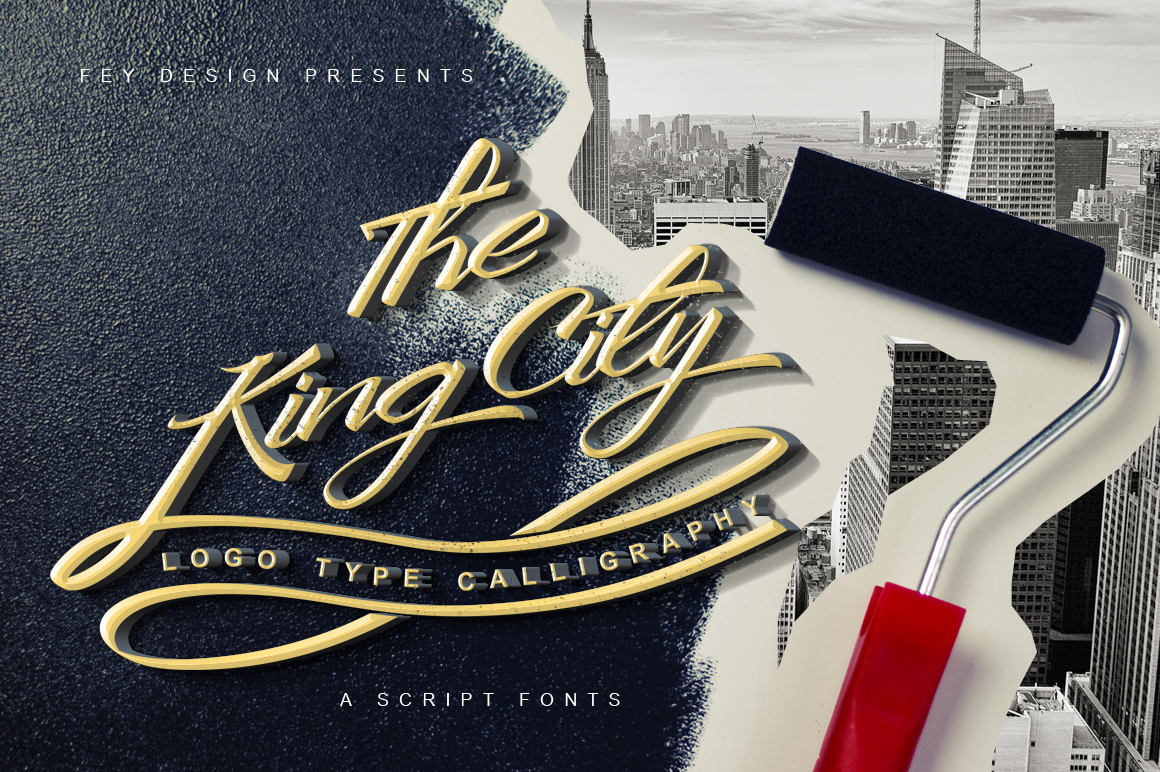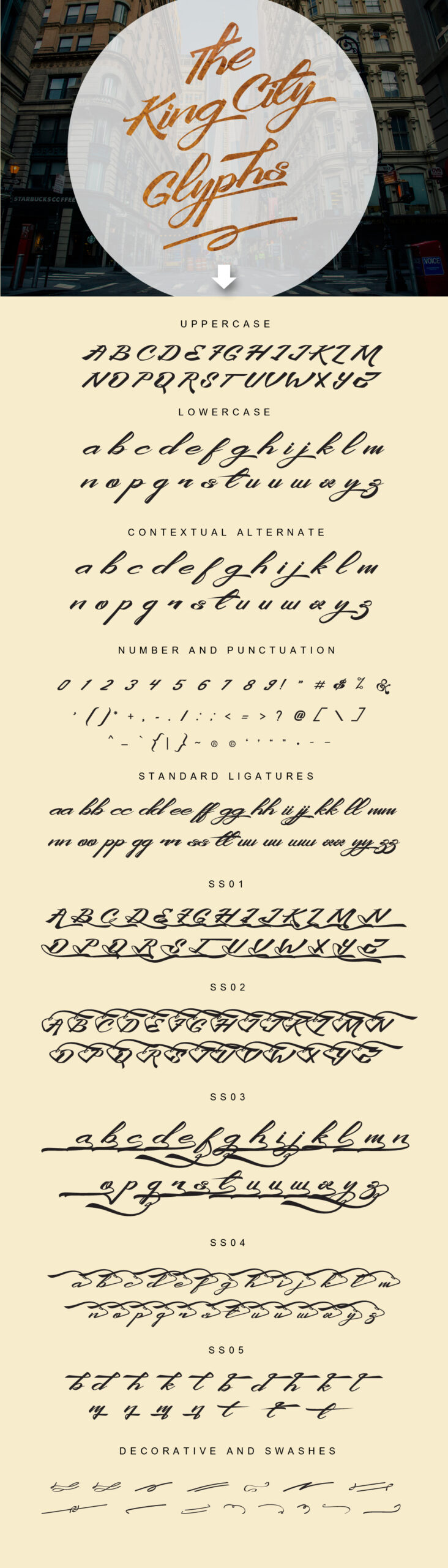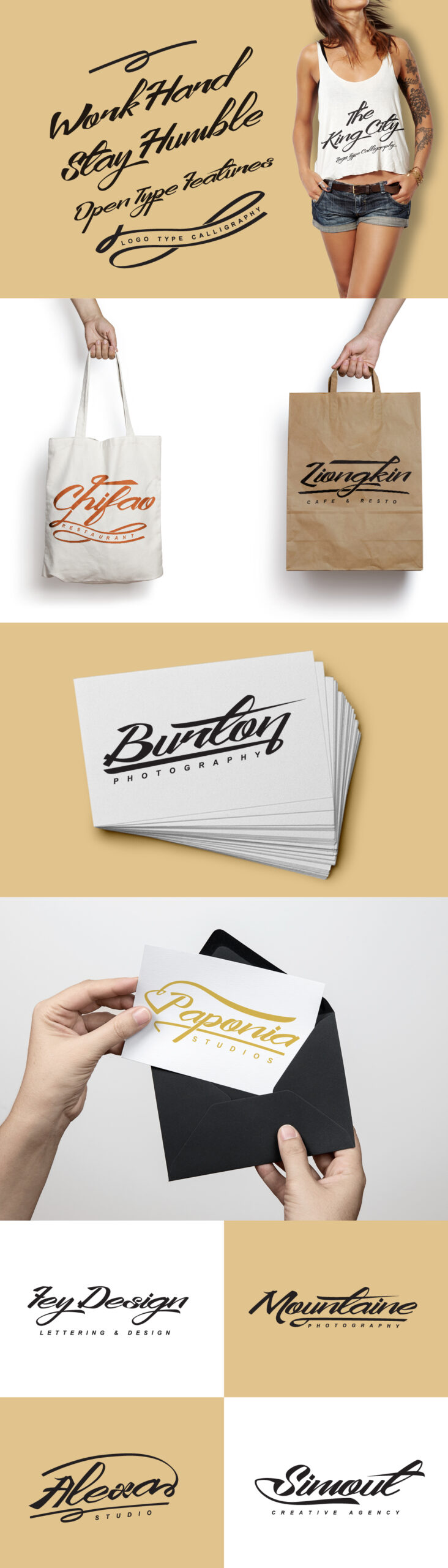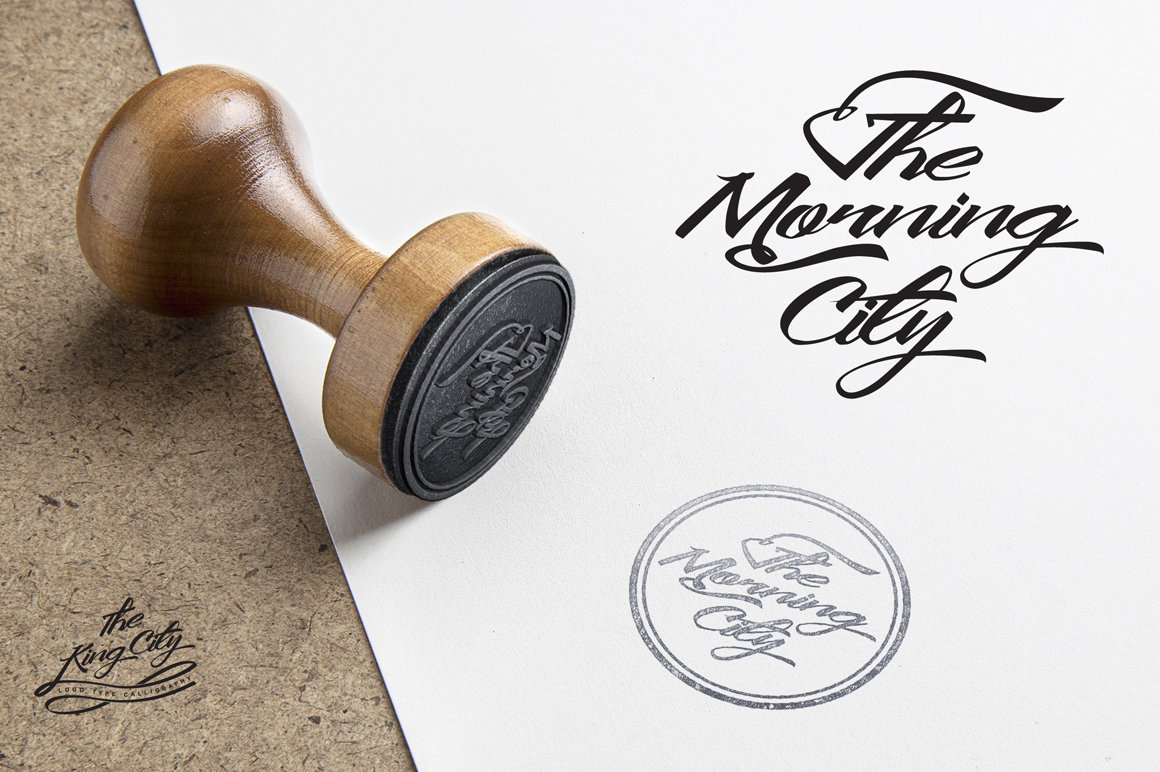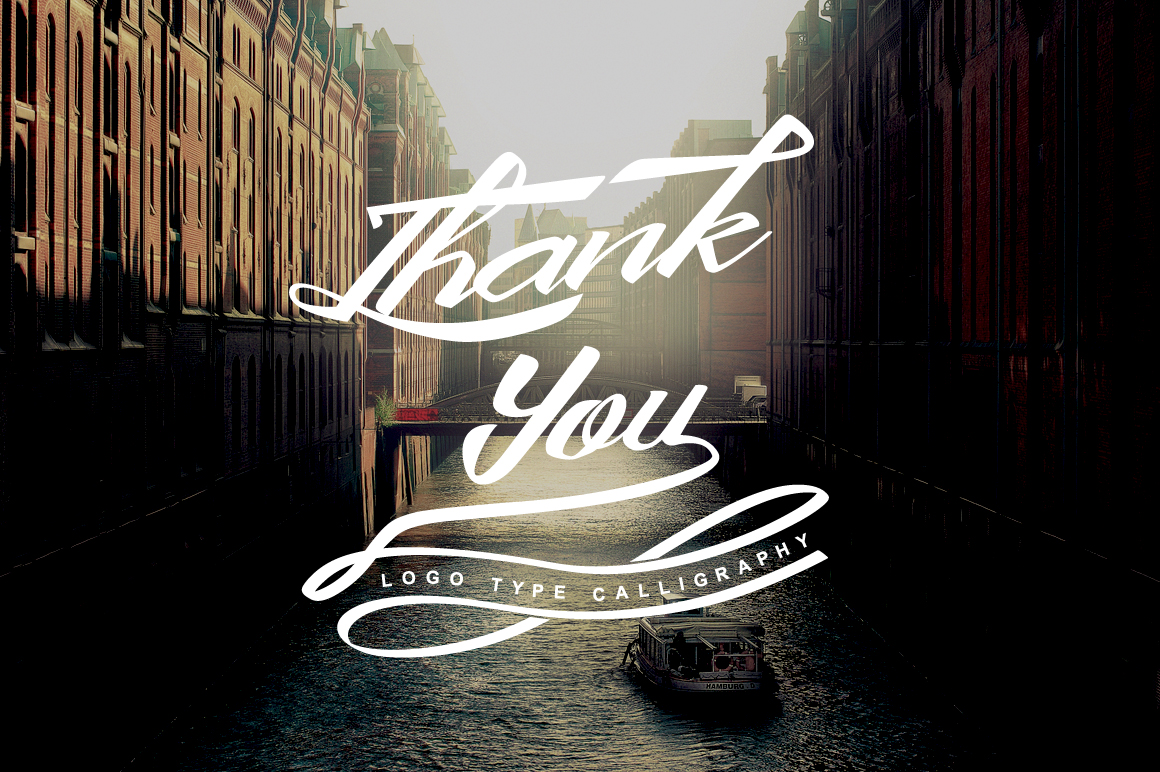
King City Font
About King City Font
King City is a beautiful script font, crafted with a logotype feel; this beautiful handwritten font is perfect for giving your designs a branded and vintage appeal with tons of swashes and decorative elements.